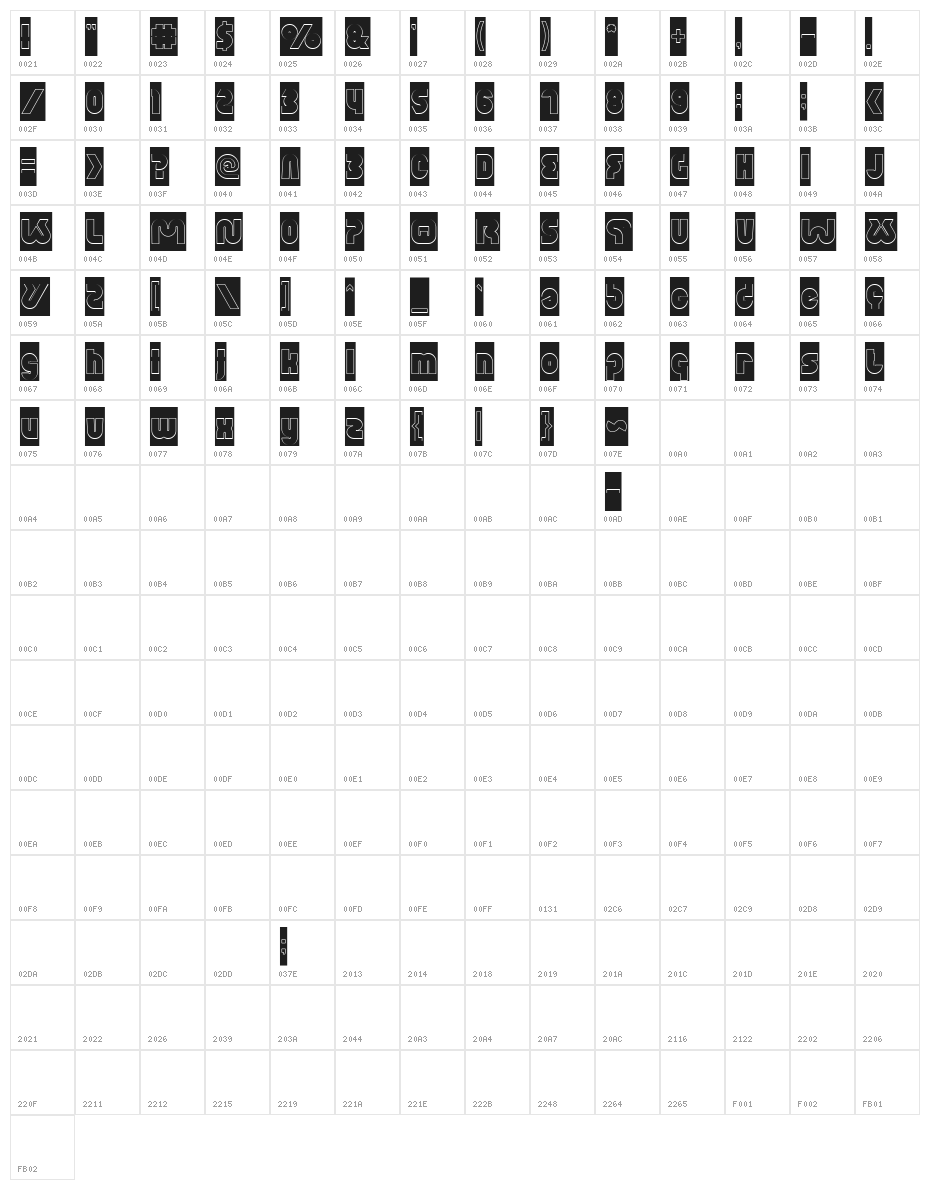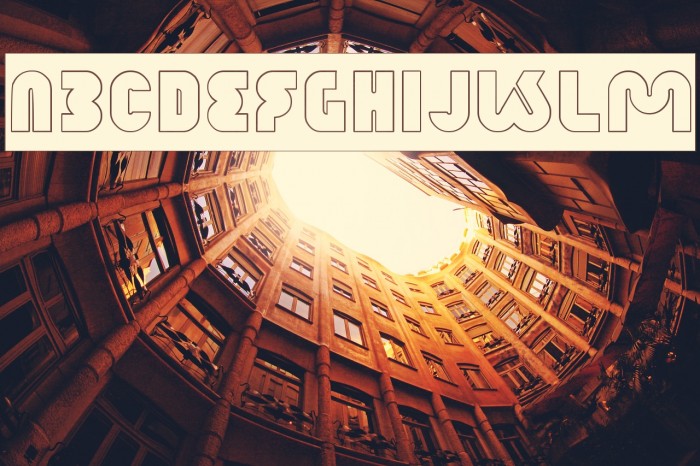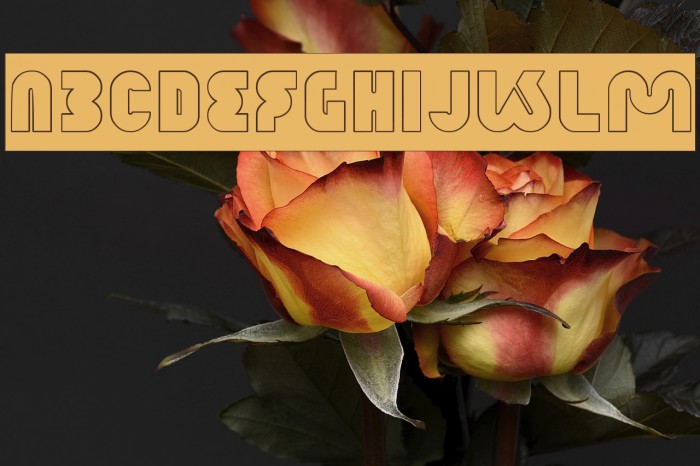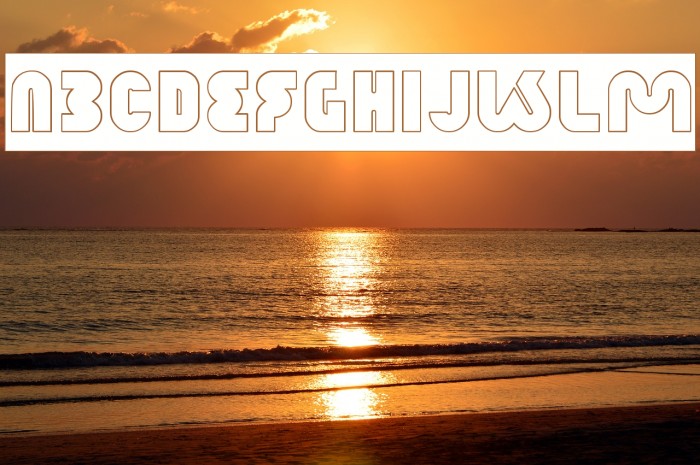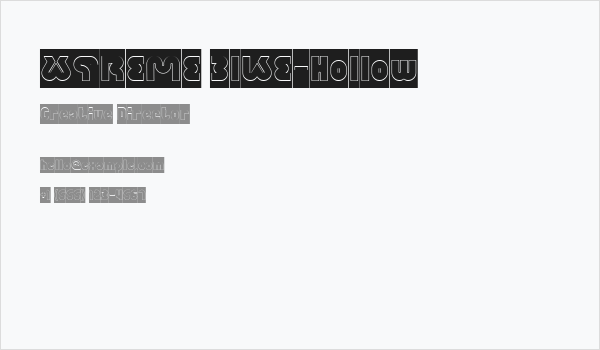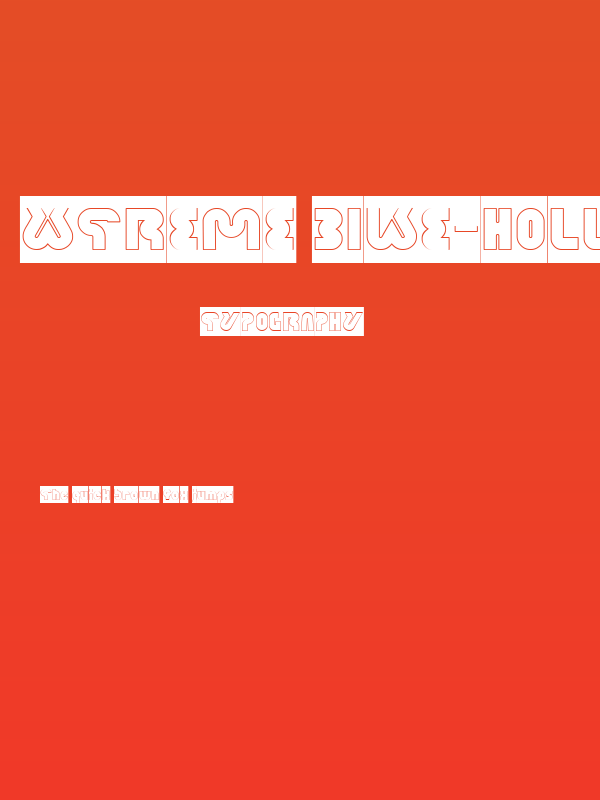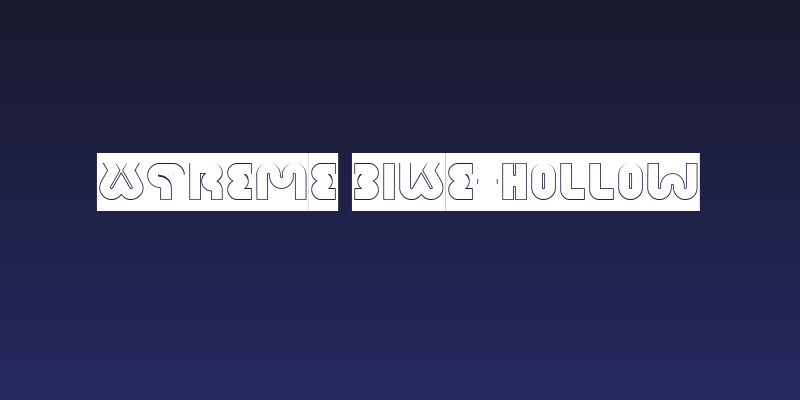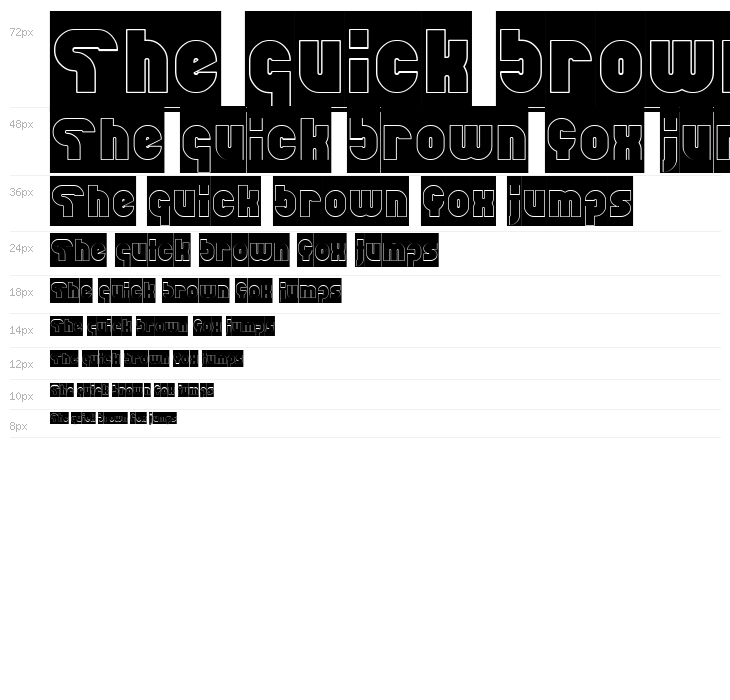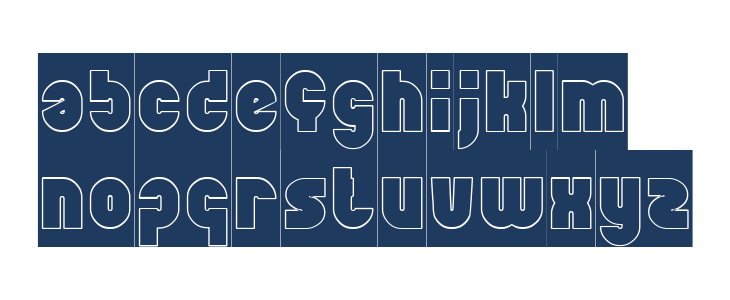
XTREME BIKE-Hollow Font
XTREME BIKE-Hollow Description
This font features a bold, hollow design with a futuristic and geometric aesthetic. The characters are outlined, creating a striking visual impact that is both modern and edgy. The uppercase and lowercase letters maintain a consistent style, with rounded edges and uniform thickness throughout. The numbers and special characters follow the same design principles, ensuring a cohesive look across all elements. This font's unique style makes it ideal for projects that require a bold statement or a contemporary feel.
Proposed ProjectsIdeal for branding, posters, sports-themed designs, and modern digital interfaces.